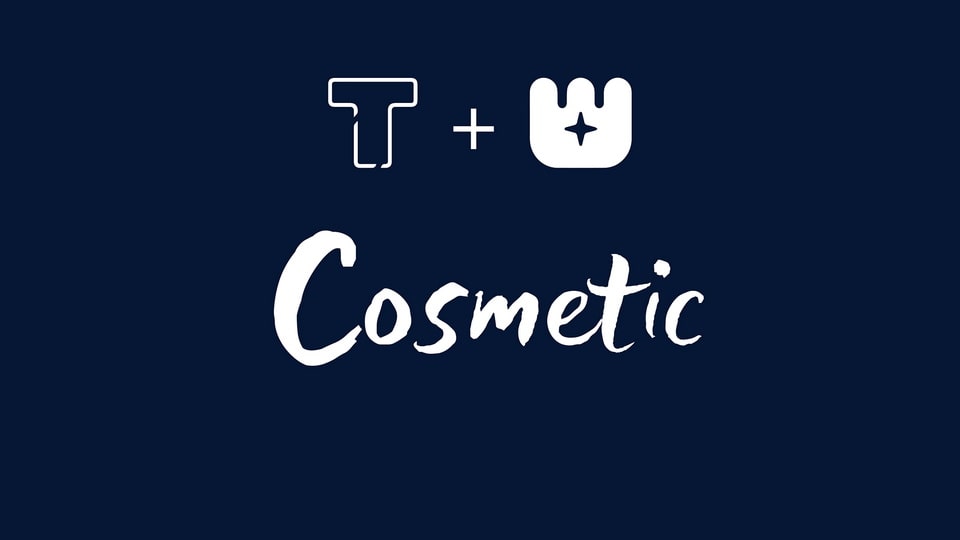
Download LT Cosmetic font, an influential brush typeface that captures the spirit of beautifying makeovers. This makes it great for beauty and fashion related topics.